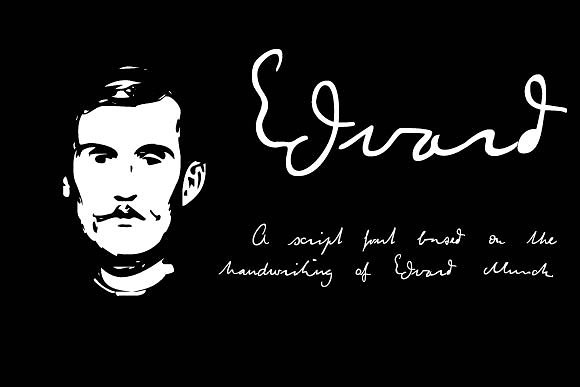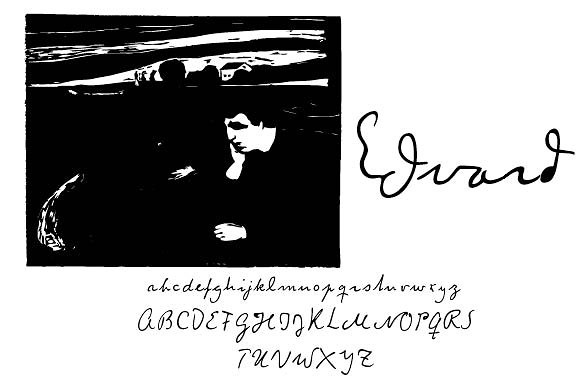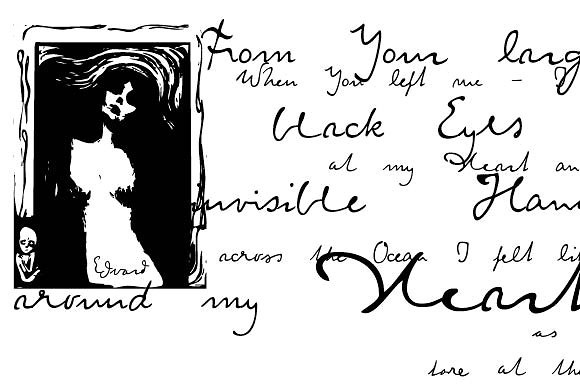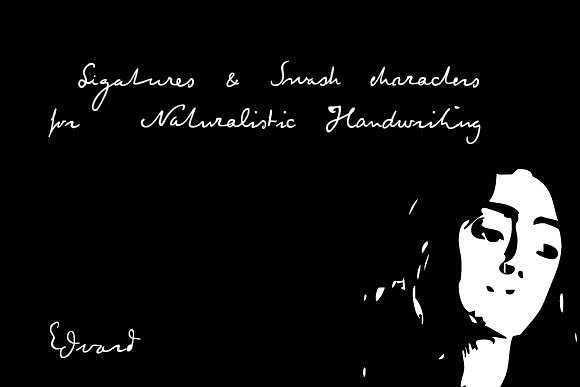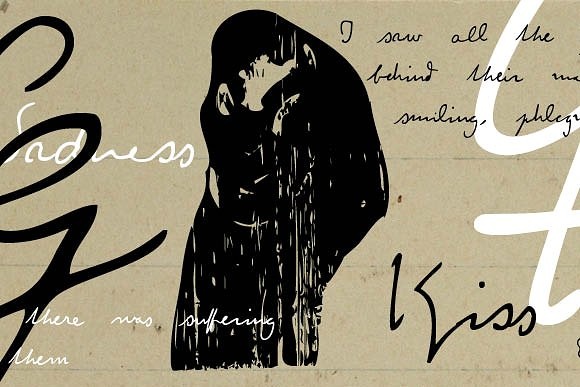
Edvard Font
About Edvard Font
This font is based on the handwriting of Norwegian painter Edvard Munch. Using his many letters, drafts, notes- and sketchbooks as reference, this font characterizes the elegant yet sometimes quite irregular writing style Munch had. To resemble naturalistic writing and remain as authentic as possible, a combination of extended ligatures and alternates has been included. Additionally, several of Munch’s paintings and woodcuts are embedded as extras.